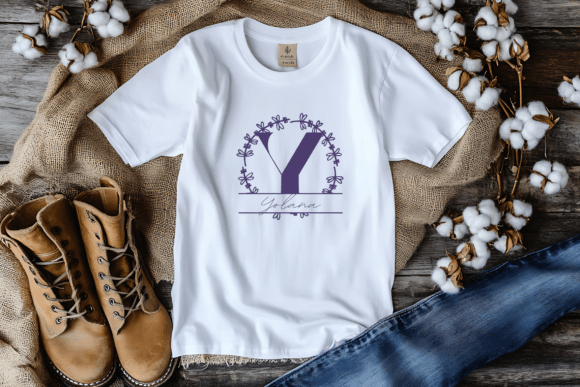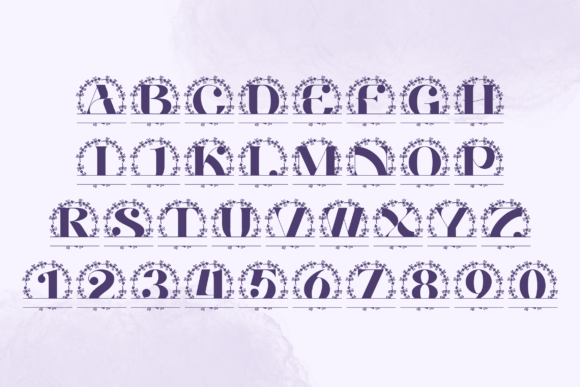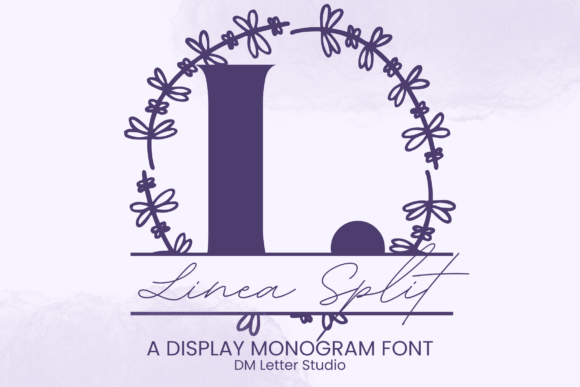
Introduction to Linea Split Monogram Font
Have you ever been in the midst of a creative project, struggling to find the perfect font to convey your message? The search for the ideal design element can be overwhelming, especially when you’re looking for something that exudes modern sophistication and elegance. That’s where Linea Split Monogram Font comes in – a game-changing, high-quality design resource that’s sure to elevate your next creative project.
Whether you’re a seasoned designer or a DIY enthusiast, Linea Split Monogram Font is an invaluable asset that’s waiting to be discovered. Its clean lines, precise geometry, and minimalist aesthetic make it the perfect choice for weddings, boutique branding, packaging, engraving, vinyl decals, and Cricut crafts. With its transparent background and free download option, you can effortlessly integrate this font into your designs, giving your projects a polished, professional look that’s sure to impress.
Key Features of Linea Split Monogram Font
- High-quality design resource for creative projects, ideal for adding a touch of elegance and sophistication.
- Unique Linea Split Monogram Font style, featuring a split monogram design with a transparent background, perfect for adding a sense of depth and visual interest.
- Perfect for use in graphic design, branding, and digital art projects where a high-quality, customizable font is required.
- Designed to be highly customizable, allowing designers to easily adjust the font’s appearance to suit their specific design needs.
Honest Review: Linea Split Monogram Font
I recently stumbled upon the Linea Split Monogram Font, and I must say it’s a game-changer for any creative project that requires a touch of elegance and sophistication. The font’s unique design, featuring a split monogram style, adds a level of complexity that’s hard to find in other fonts.
One of the standout features of this font is its versatility. It can be used for a variety of purposes, from wedding invitations to branding materials, and even social media graphics. The font is available for free download, making it a valuable resource for designers on a budget.
- High-quality design that’s perfect for creative projects ✨
- Transparent background, allowing for easy customization ✨
- May not be suitable for all types of projects, particularly those requiring a more modern or edgy look ⚠️
- Some users may find the font too complex or difficult to read ⚠️
Overall, I’m thoroughly impressed with the Linea Split Monogram Font. Its unique design and versatility make it a valuable addition to any designer’s toolkit. While it may not be perfect for every project, it’s definitely worth considering for any creative endeavor that requires a touch of sophistication and elegance.
Tips for Getting the Most Out of Linea Split Monogram Font
Use the font in conjunction with other design elements, such as graphics and shapes, to create a visually appealing design. Experiment with different font sizes and colors to add depth and interest to your project.
The Linea Split Monogram Font is ideal for wedding invitations, social media graphics, and branding materials. Its elegant design makes it perfect for formal events and corporate communications.